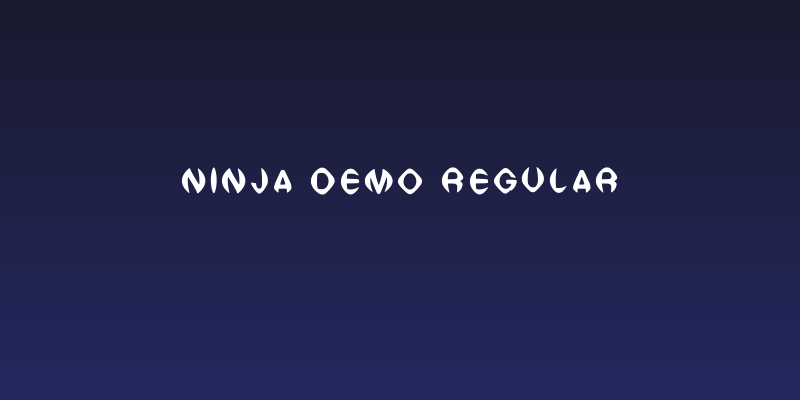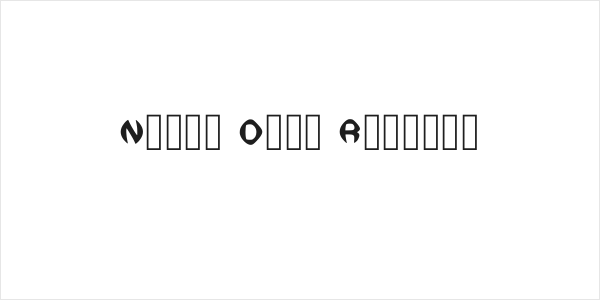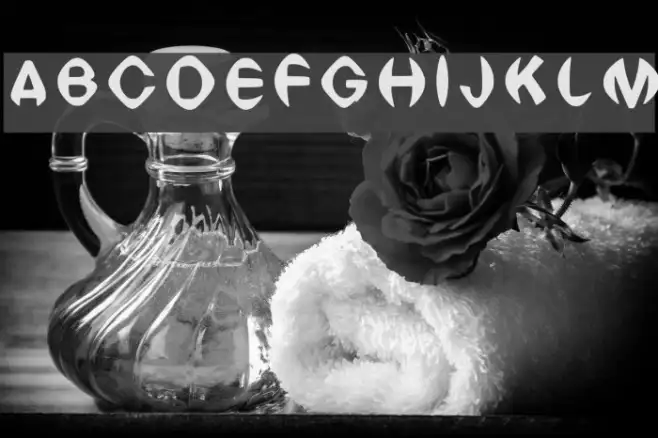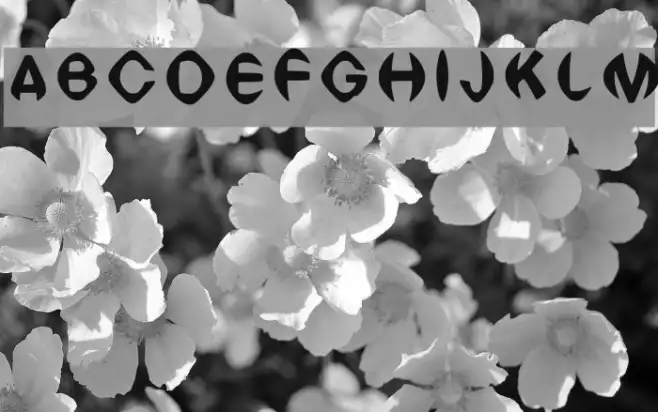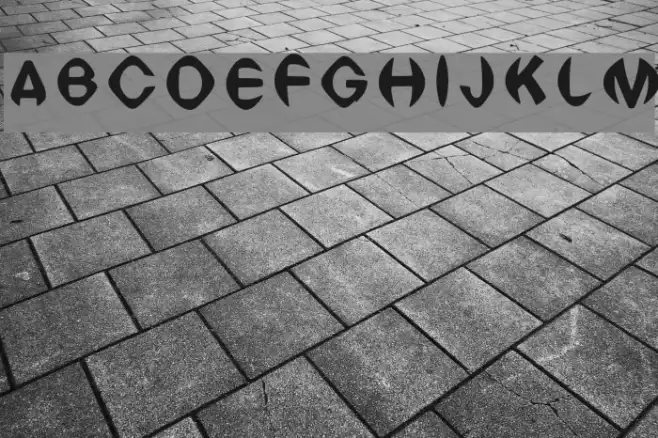
Ninja Demo Regular Font
Ninja Demo Regular Description
This font features a bold and striking design with a unique, angular style that evokes a sense of stealth and agility. The uppercase letters are crafted with sharp edges and pointed tips, creating a dynamic and energetic appearance. The font's design is reminiscent of ninja aesthetics, with each character exuding a sense of movement and fluidity. The absence of lowercase letters and numbers suggests a focus on impactful headlines or titles. The special characters maintain the same bold and angular style, ensuring consistency throughout the font.
| Proposed Projects | Perfect for use in video game titles, martial arts event posters, or any project requiring a bold, energetic typeface. |